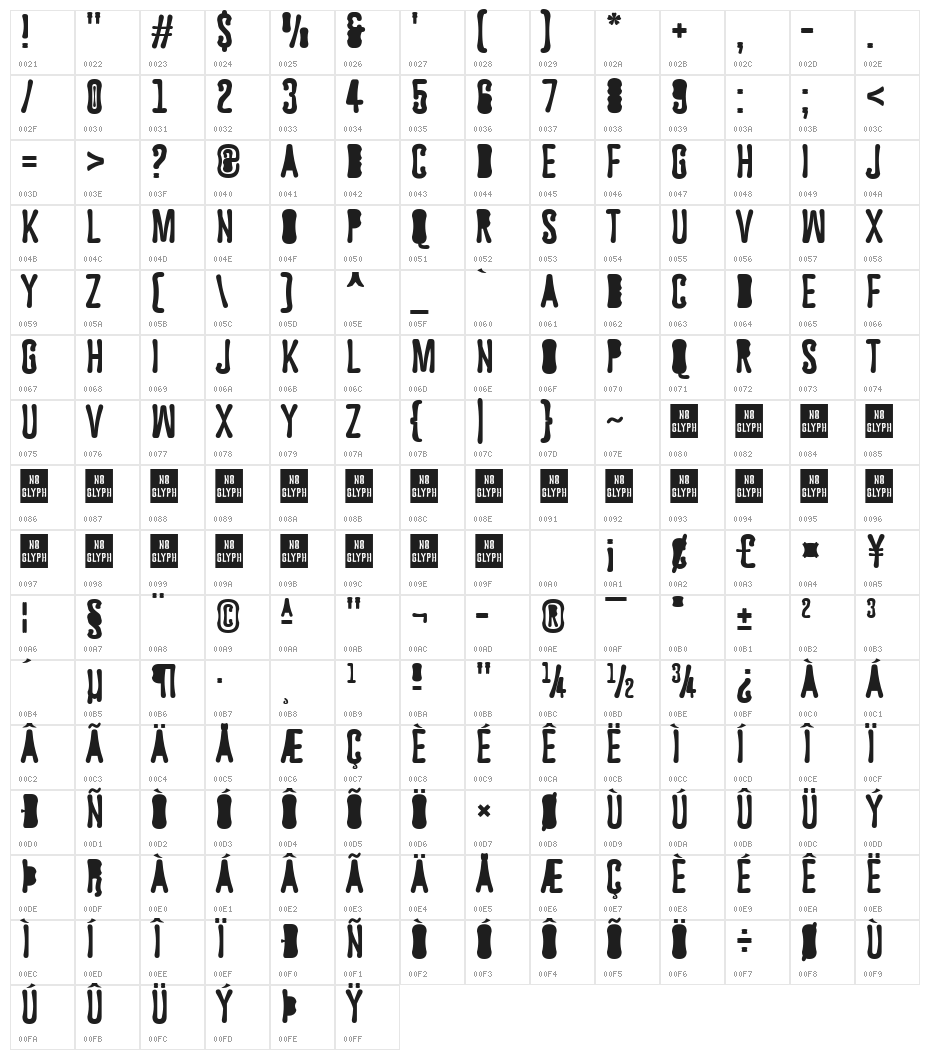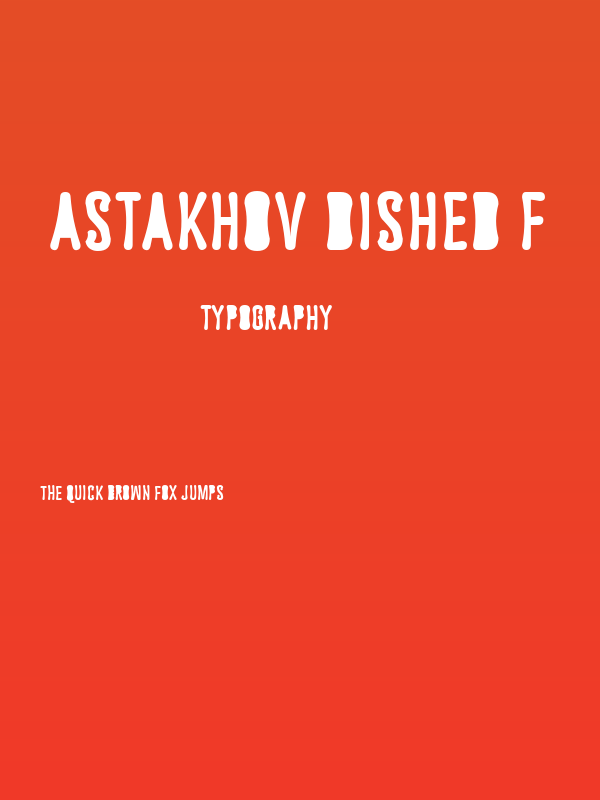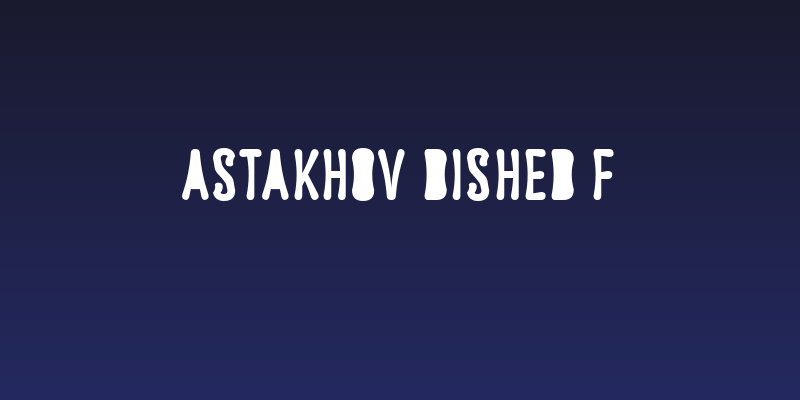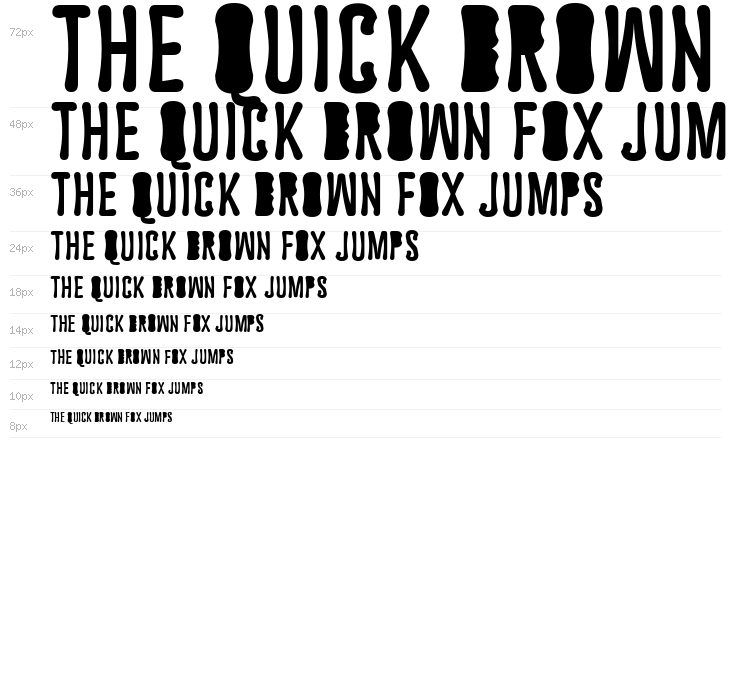
Astakhov Dished F Font
Astakhov Dished F Description
This font features a bold and playful design with a unique, irregular shape that gives each character a distinct personality. The letters have a whimsical, almost cartoonish appearance, with varying thicknesses and rounded edges that create a sense of movement and fun. The uppercase and lowercase letters maintain a consistent style, while the numbers and special characters complement the overall aesthetic with their quirky forms. This font is highly decorative and stands out with its artistic flair, making it ideal for creative projects that require a touch of originality and boldness.
| Proposed Projects | Ideal for children's book covers, playful branding, posters, and creative invitations. |